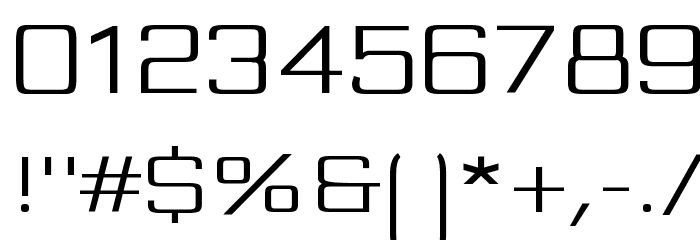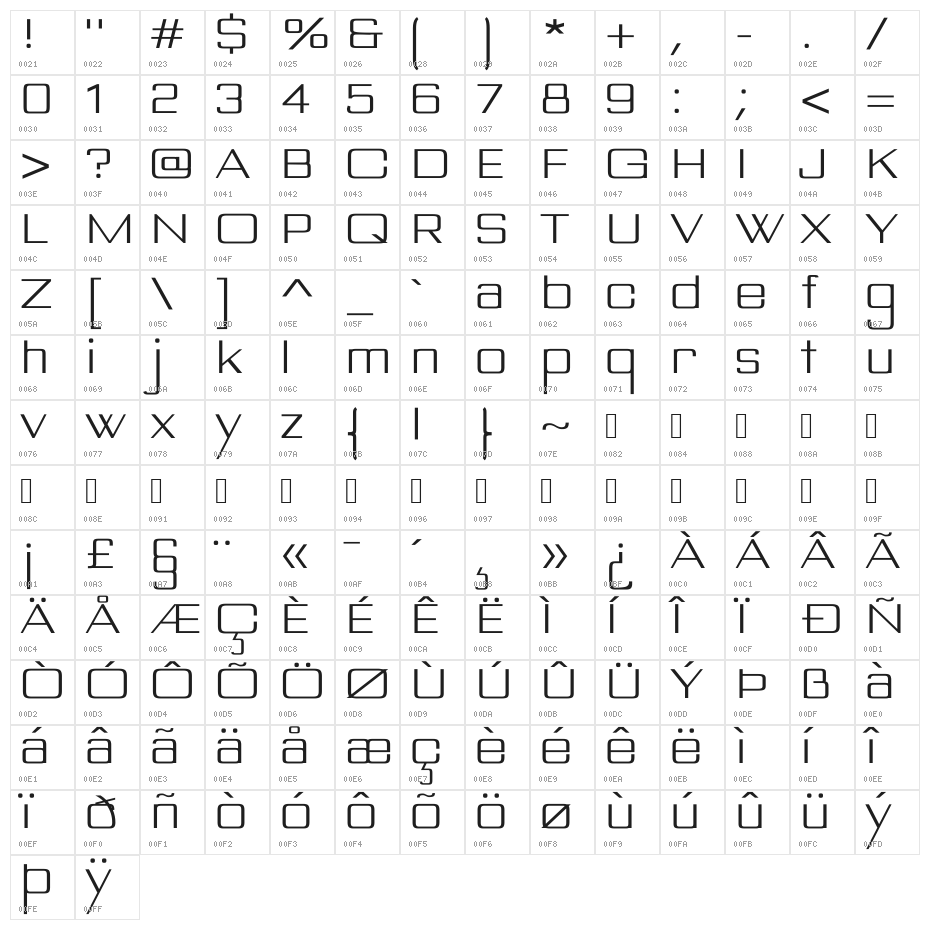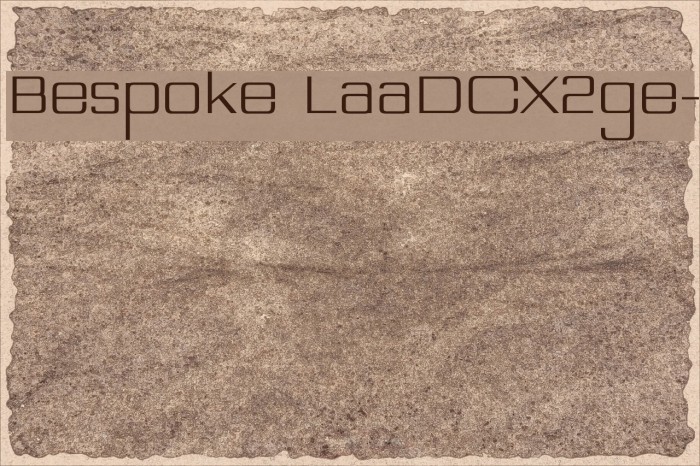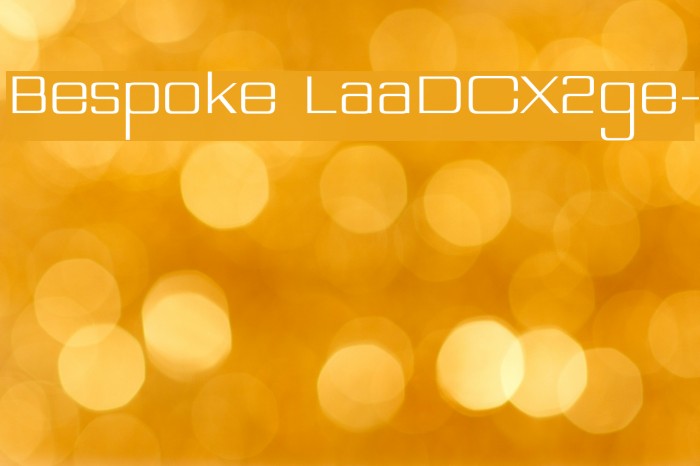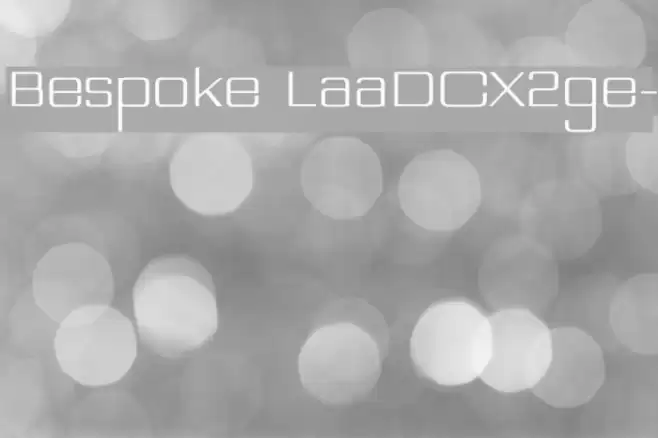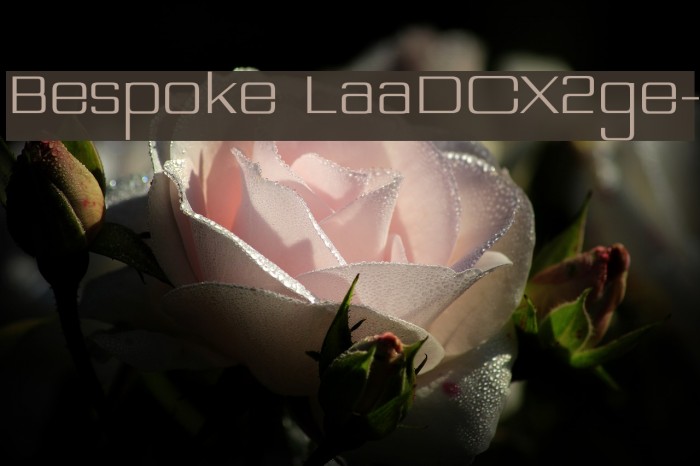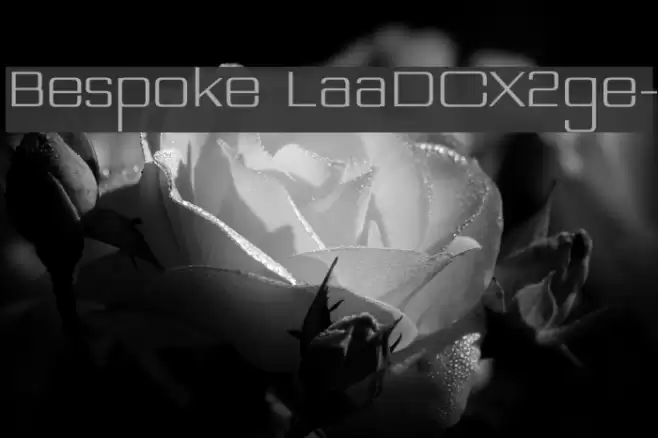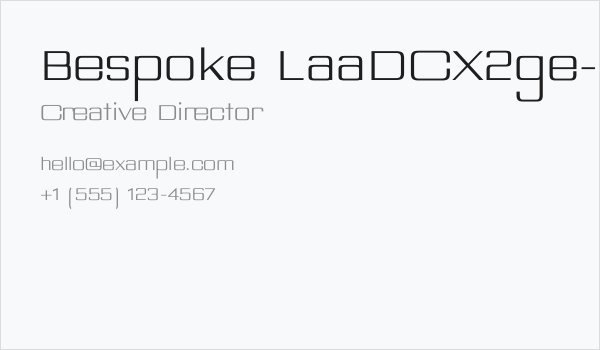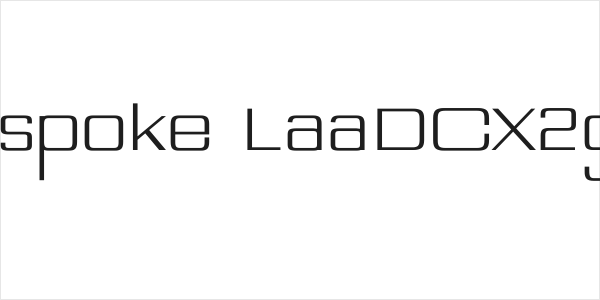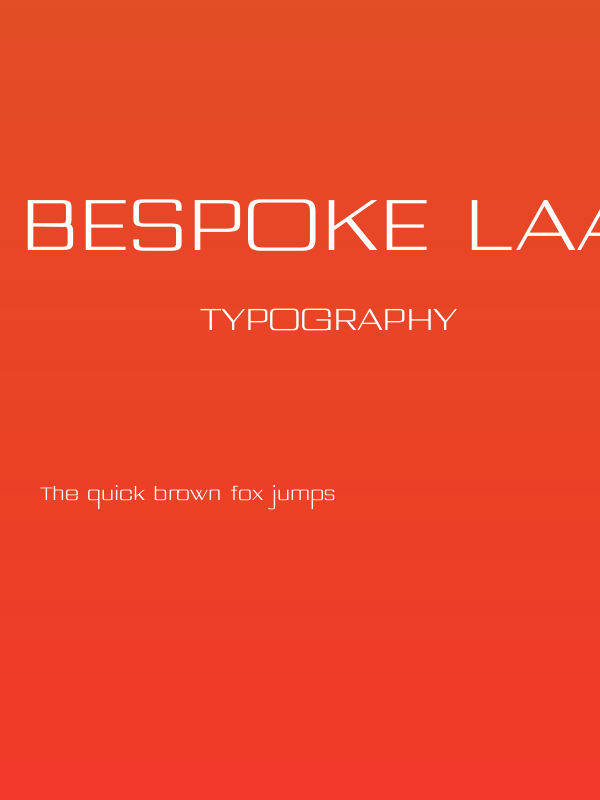
Bespoke LaaDCX2ge- Font
Bespoke LaaDCX2ge- Description
This font features a modern, geometric design with clean lines and a minimalist aesthetic. The characters are constructed with a consistent stroke width, giving it a uniform appearance. The uppercase letters are bold and commanding, while the lowercase letters maintain a sleek and streamlined look. The numerals are clear and legible, making them suitable for various applications. Special characters are designed with the same attention to detail, ensuring a cohesive look across all glyphs. This font's simplicity and precision make it ideal for contemporary design projects.
| Proposed Projects | Ideal for tech branding, modern websites, digital interfaces, and minimalist design projects. |